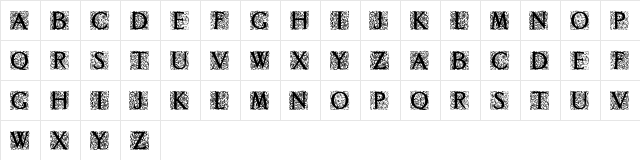
Decorated Roman Initials Regular
| Foundry | Typographer Mediengestaltung |
| Designer | Typographer Mediengestaltung |
Design Context for Decorated Roman Initials Typeface
Decorated Roman Initials takes a measured approach to typography — its balanced proportions and neutral character make it a reliable workhorse for both digital and print work.